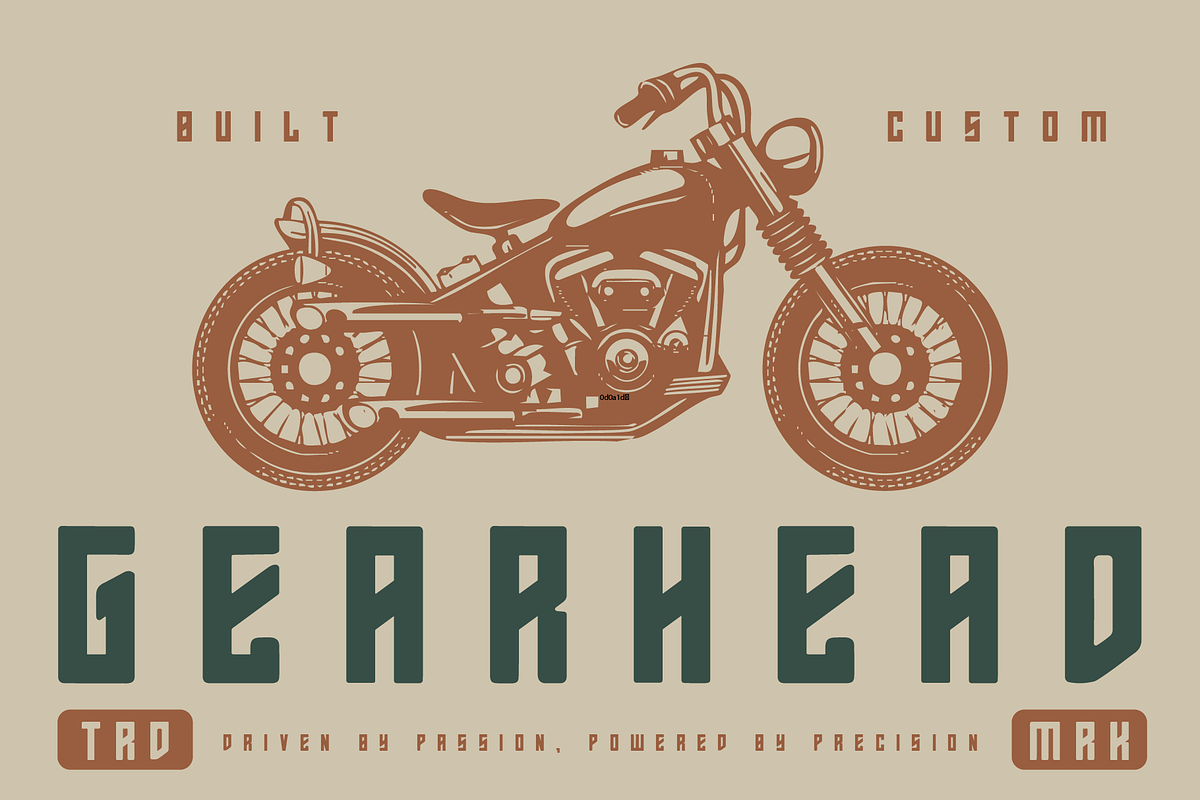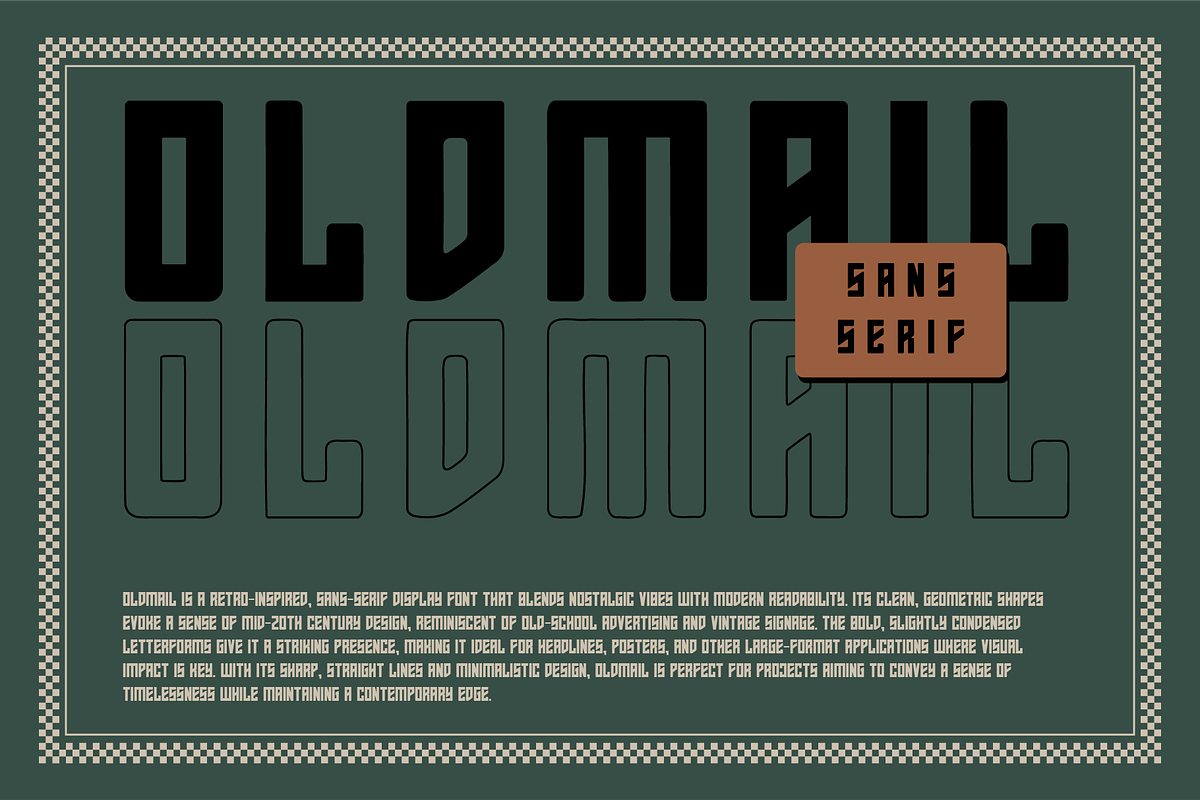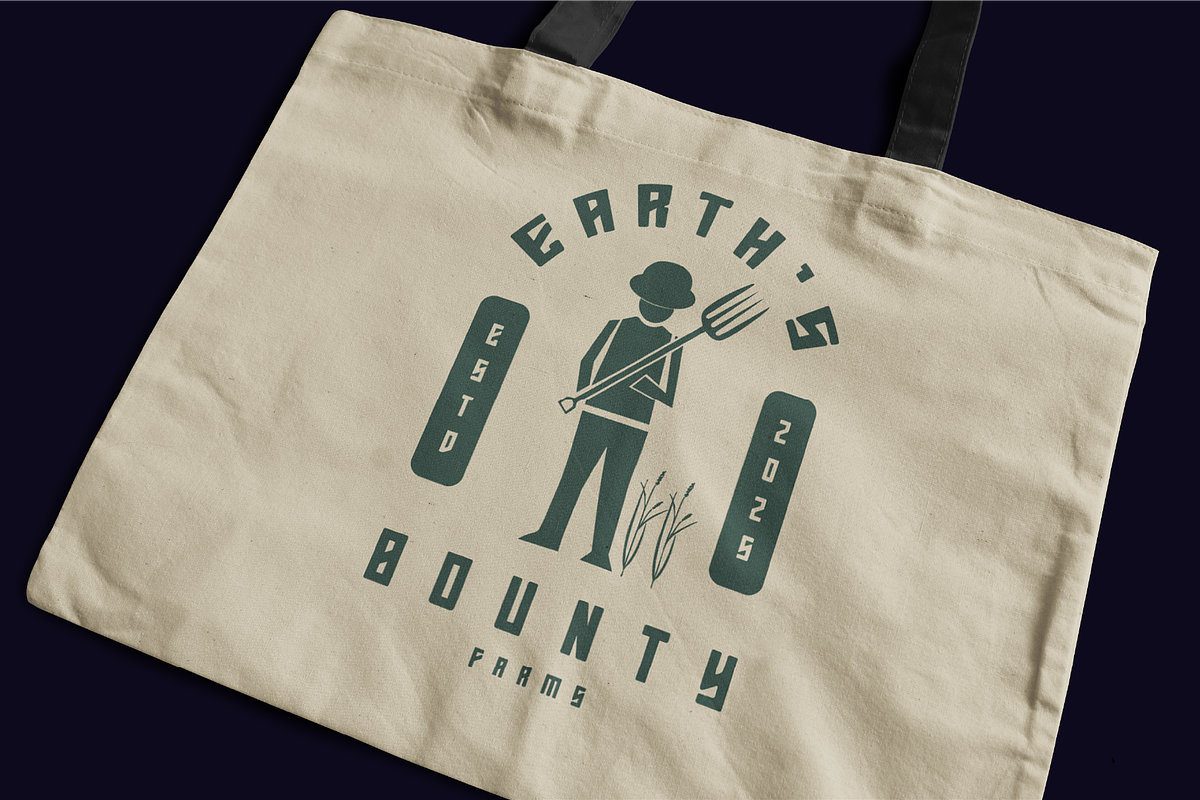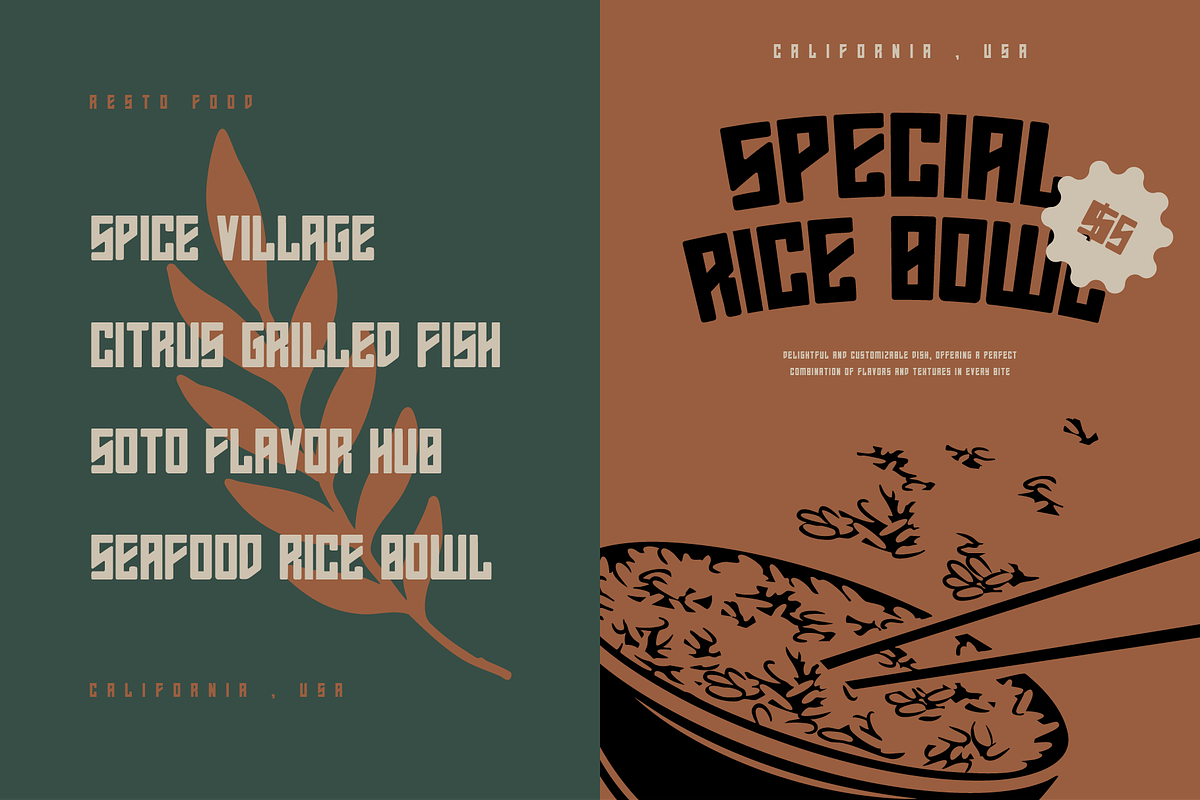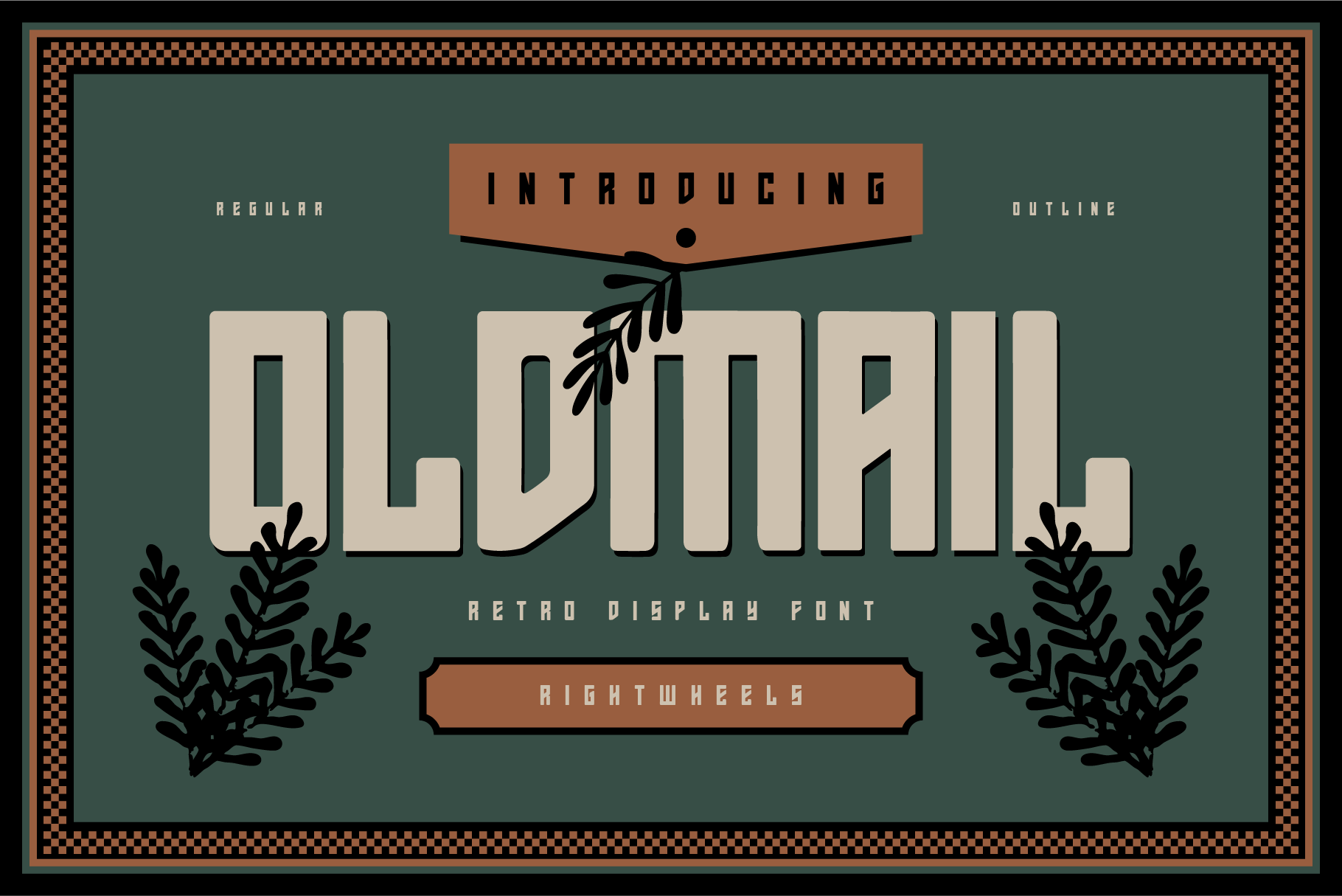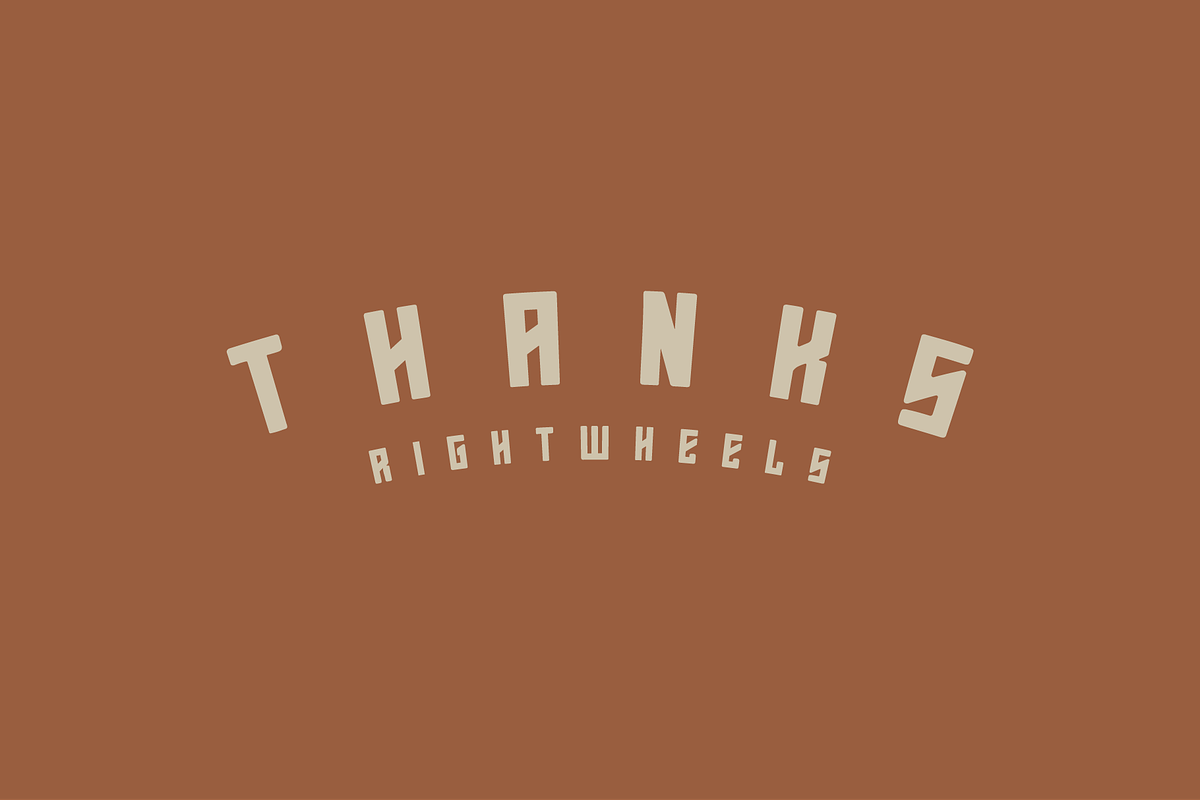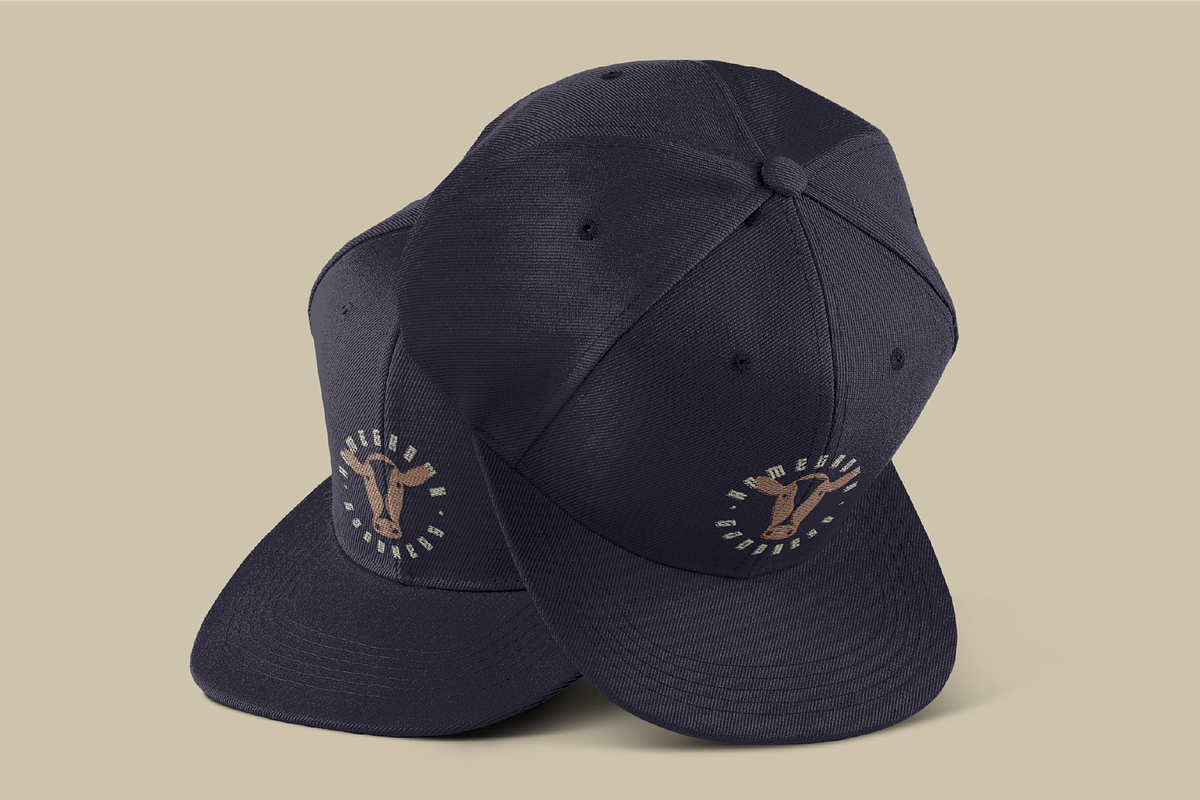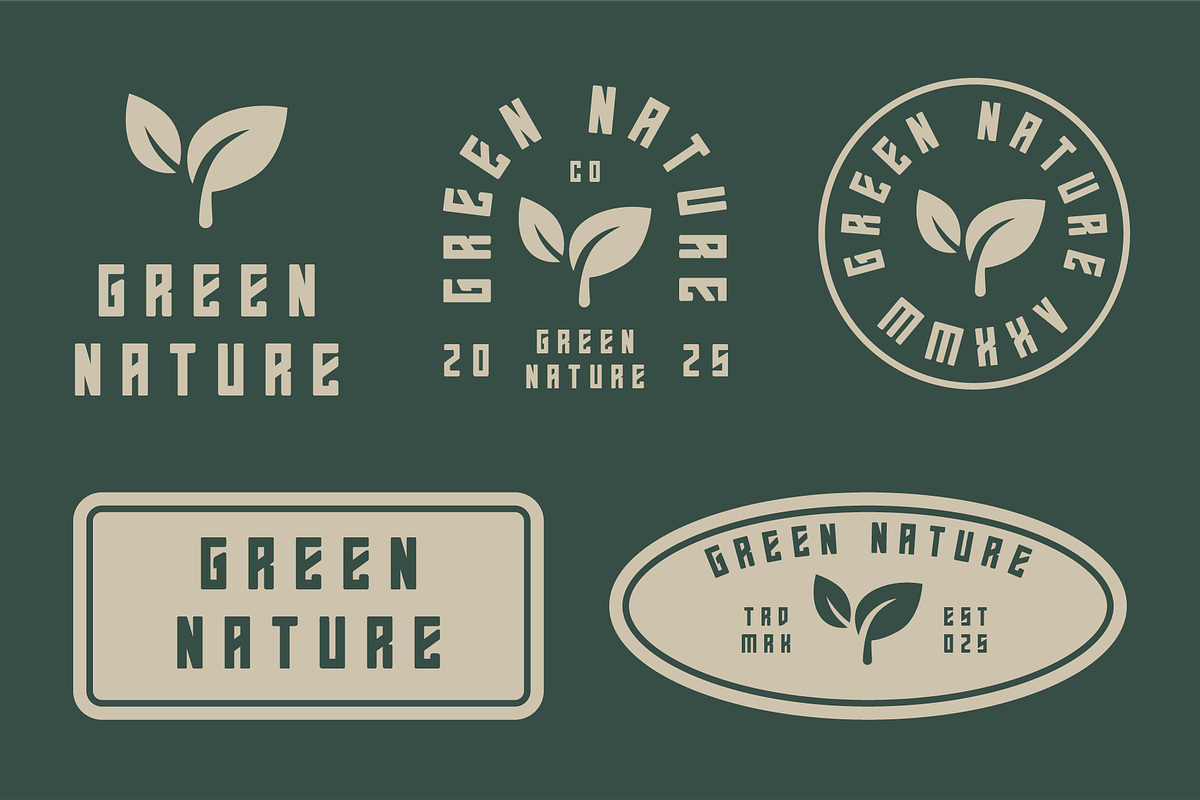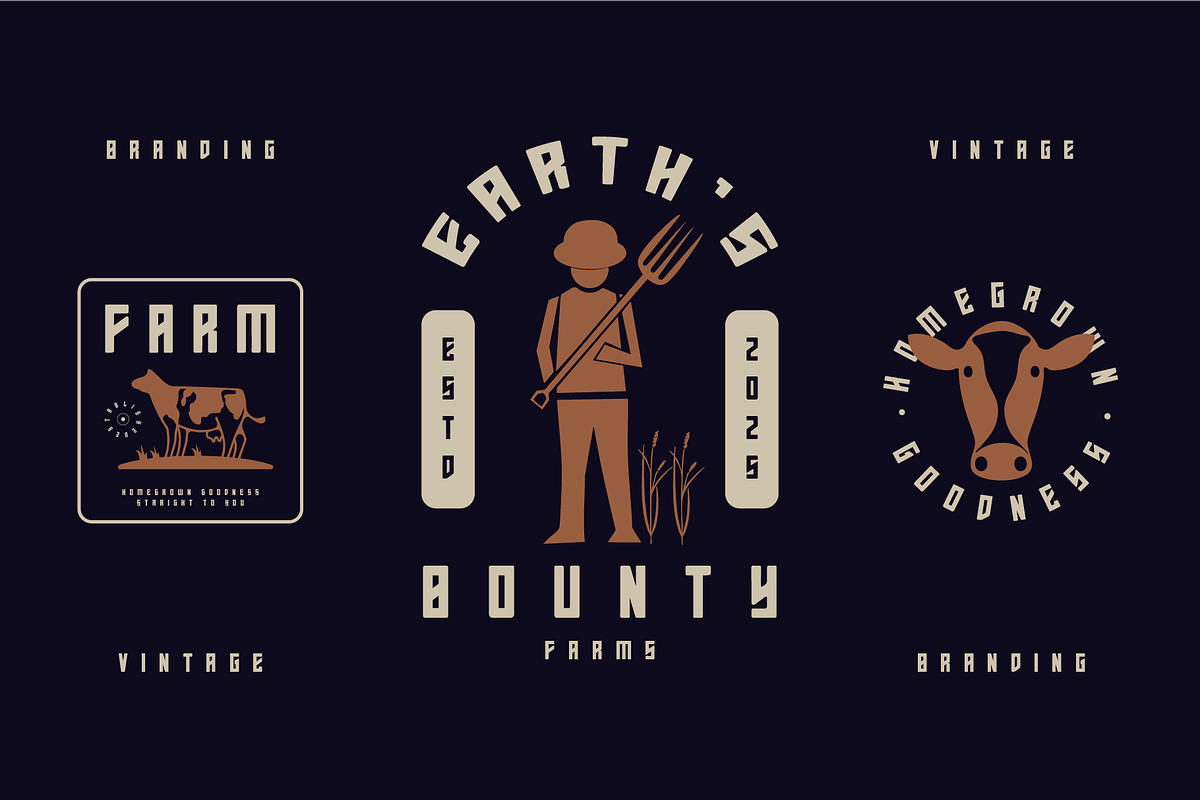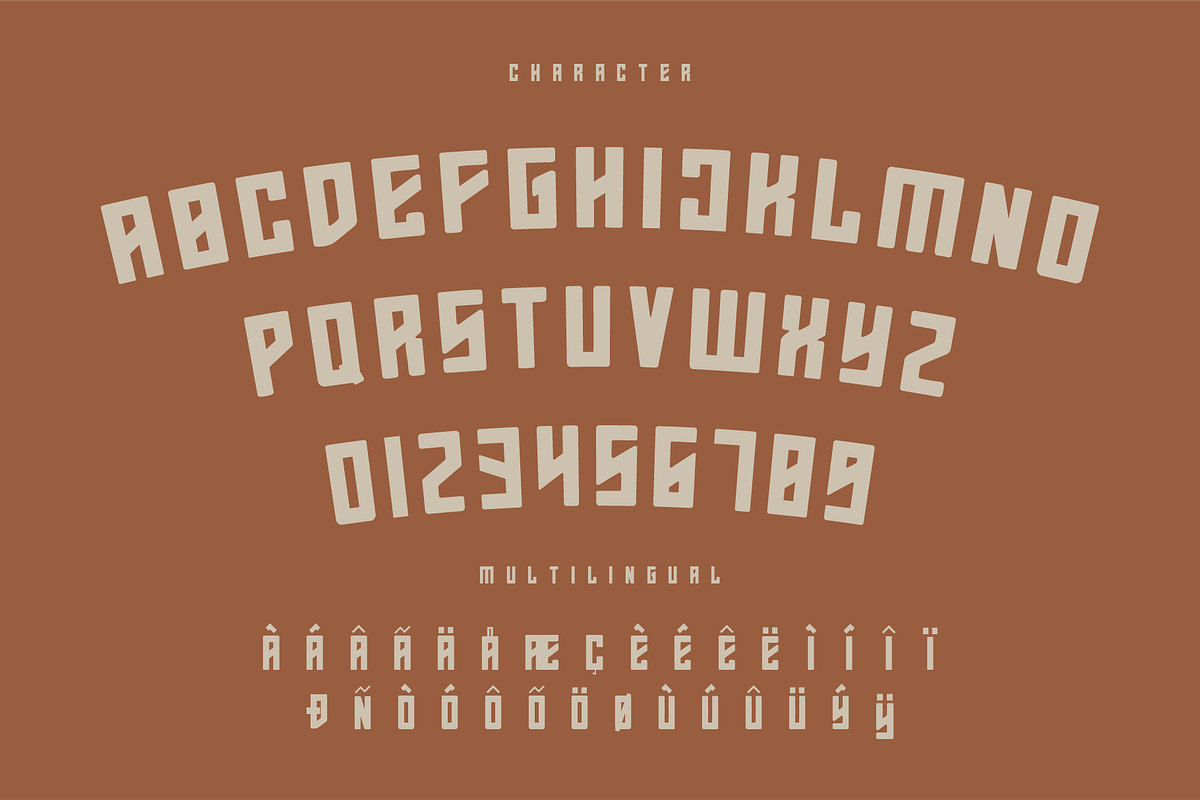
OLDMAIL - Retro Display Font
Oldmail is a retro-inspired, sans-serif display font that blends nostalgic vibes with modern readability. Its clean, geometric shapes evoke a sense of mid-20th century design, reminiscent of old-school advertising and vintage signage. The bold, slightly condensed letterforms give it a striking presence, making it ideal for headlines, posters, and other large-format applications where visual impact is key. With its sharp, straight lines and minimalistic design, Oldmail is perfect for projects aiming to convey a sense of timelessness while maintaining a contemporary edge.